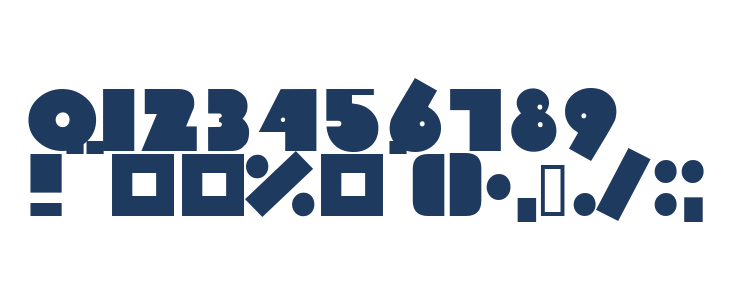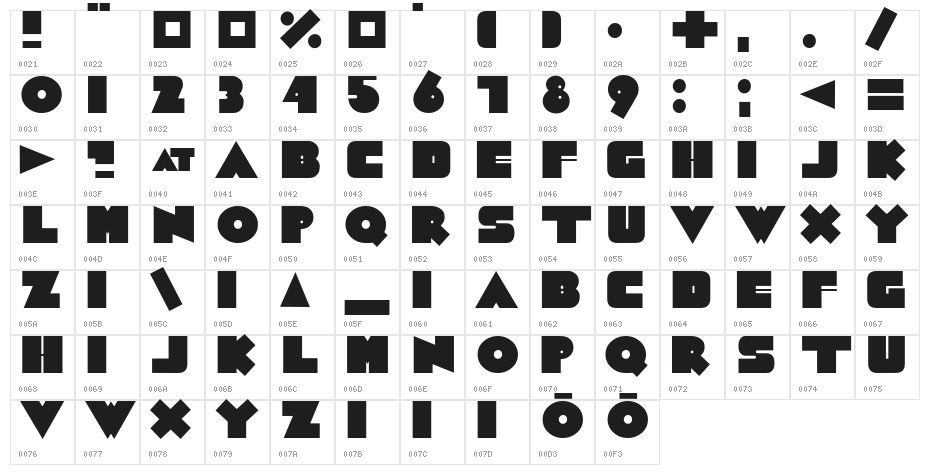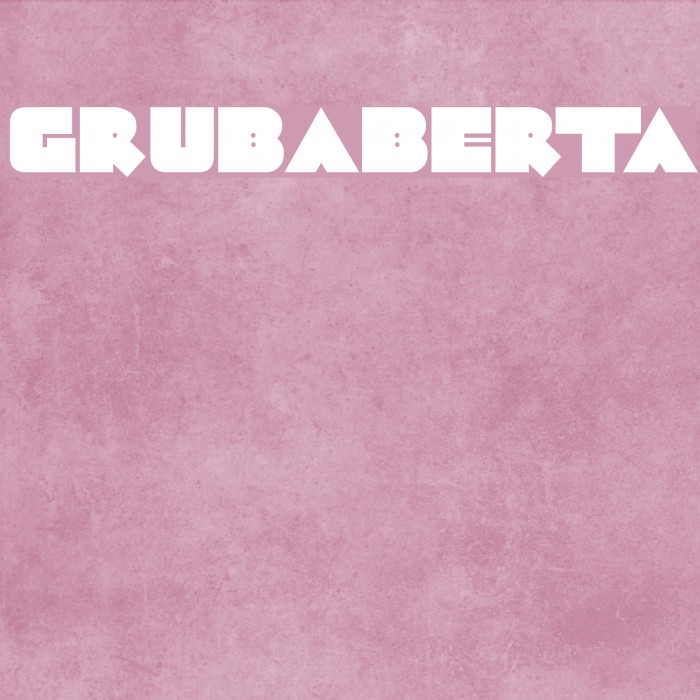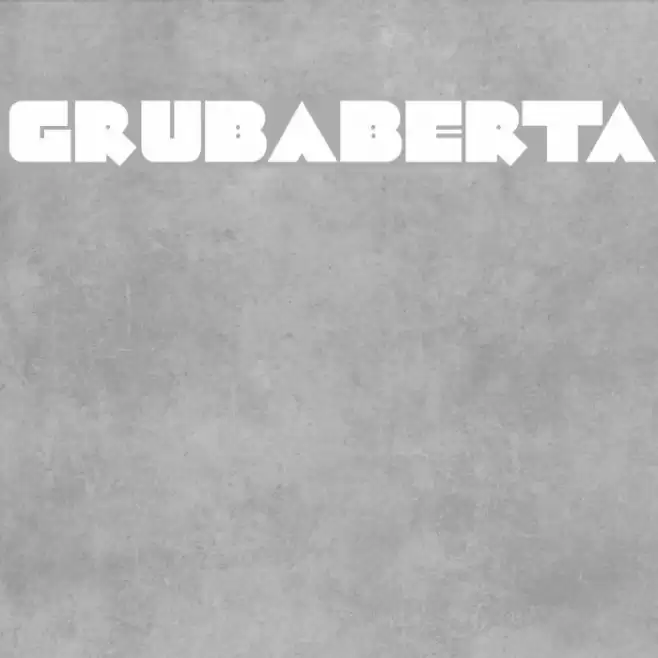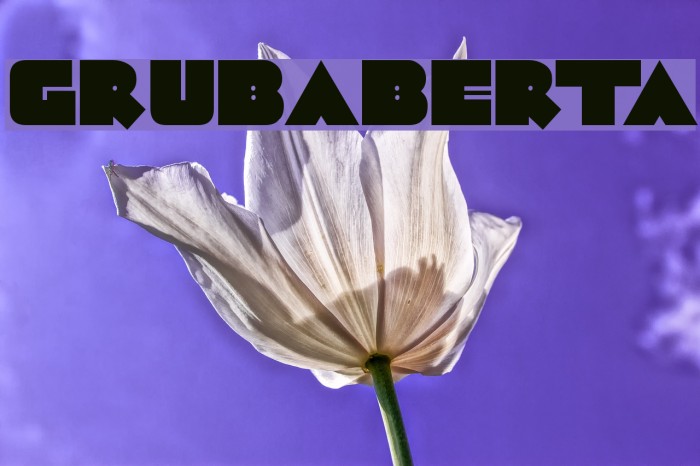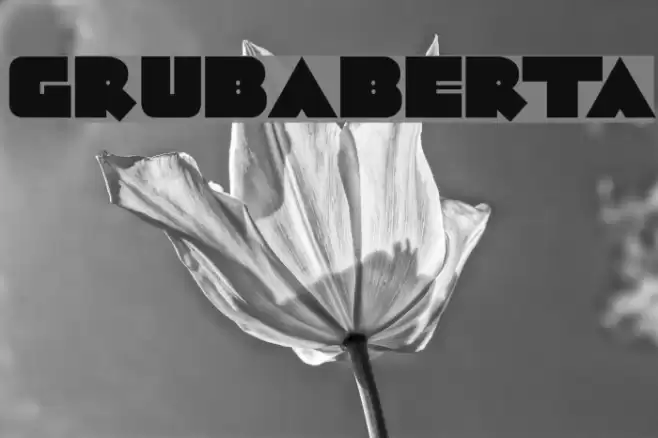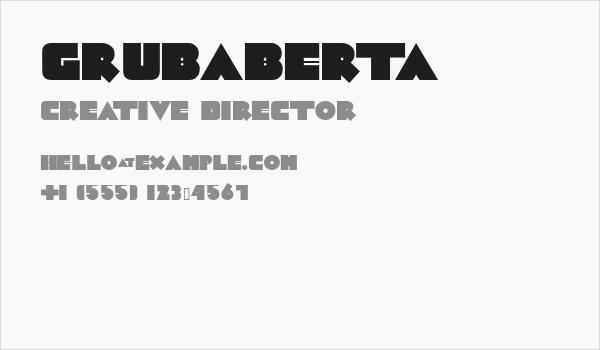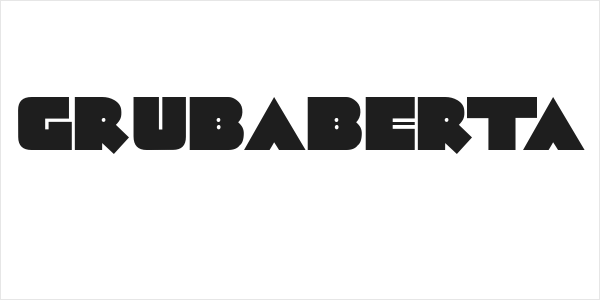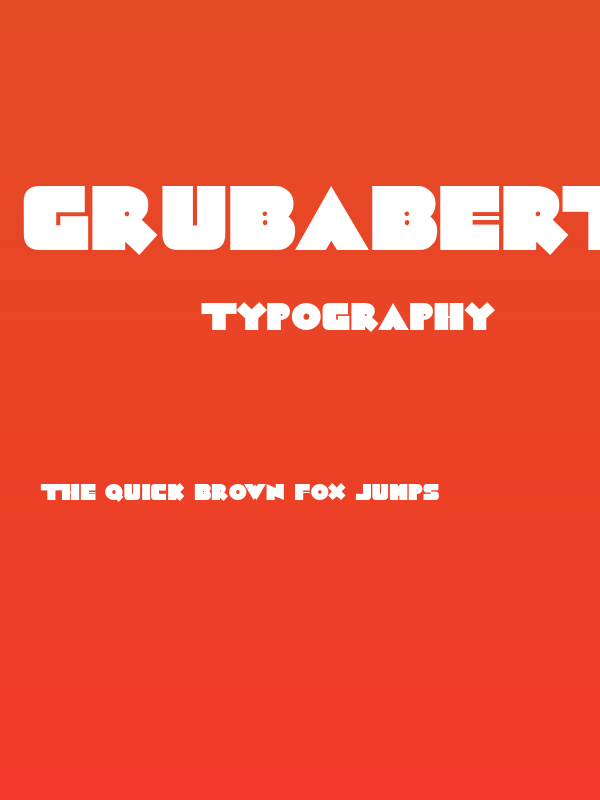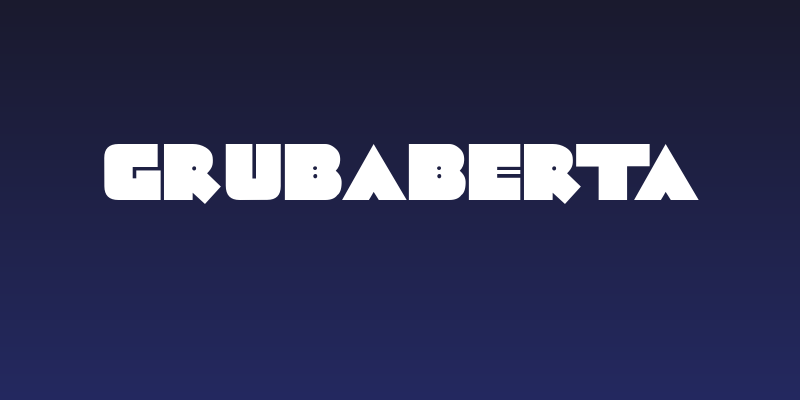
GrubaBerta Font
GrubaBerta Description
This bold, geometric font features a strong, block-like appearance with sharp angles and a uniform thickness throughout each character. The uppercase letters are particularly striking, with a consistent height and width that creates a cohesive and impactful visual presence. The lowercase letters maintain the same boldness, ensuring readability while retaining the font's distinctive style. The numerals are equally robust, matching the overall aesthetic with their solid, angular forms. Special characters are designed to complement the alphabet, maintaining the same weight and geometric precision. This font is ideal for projects that require a bold and modern look, such as branding, posters, and headlines.
| Proposed Projects | Ideal for branding, posters, headlines, and any project requiring a bold, modern look. |